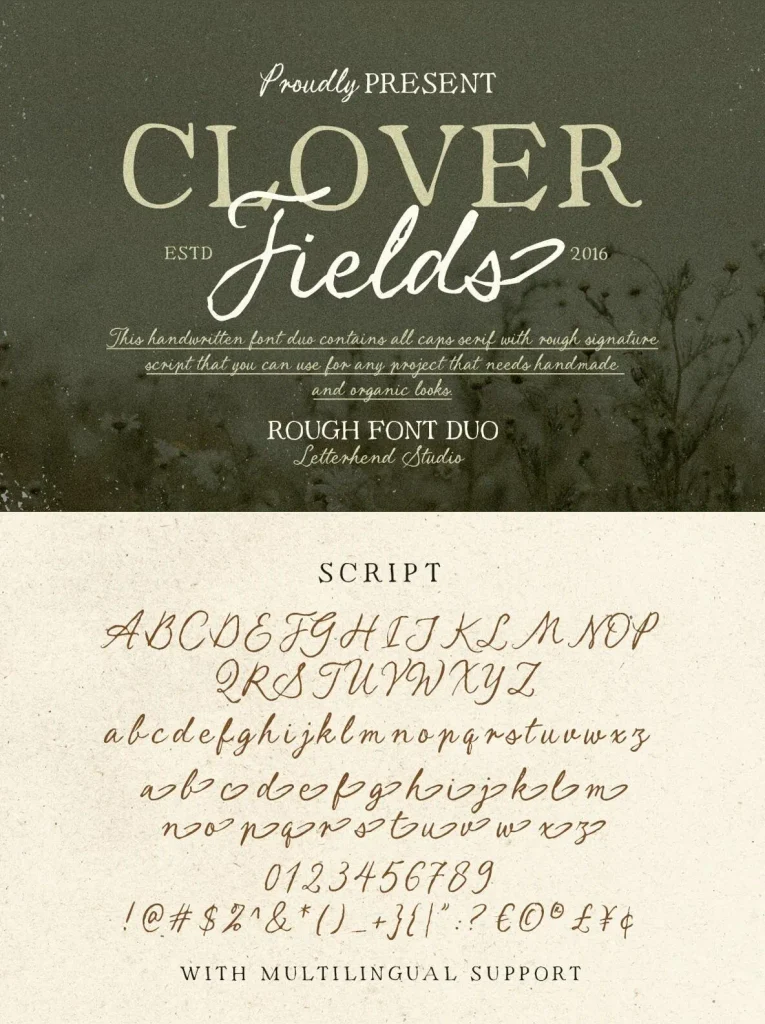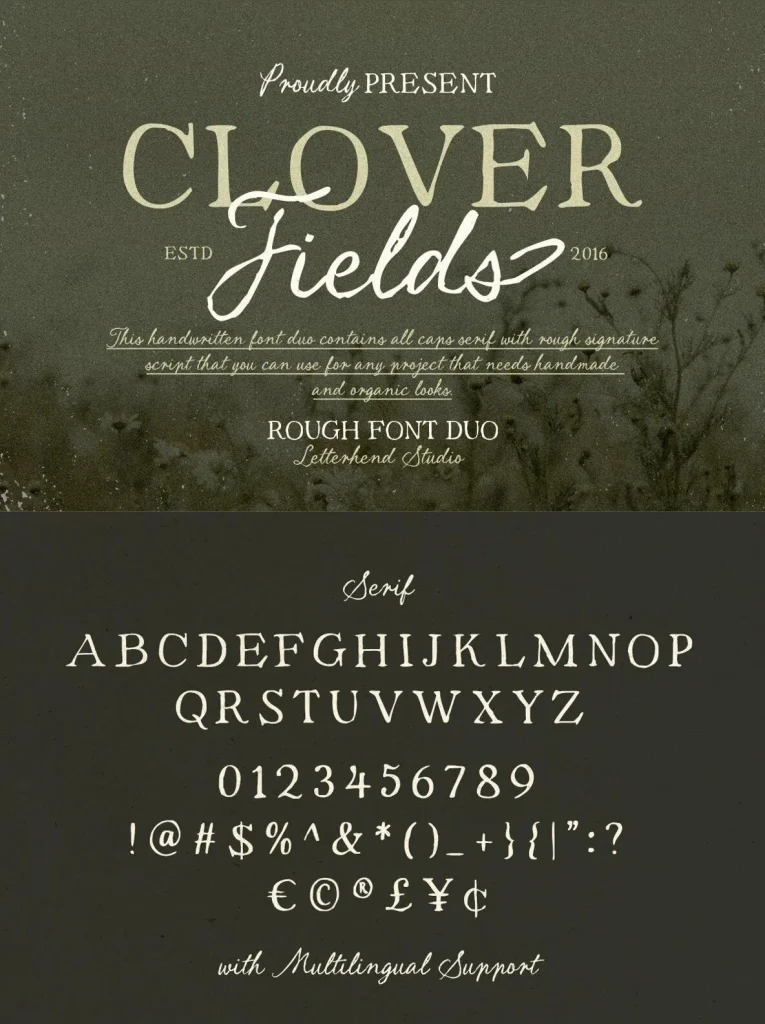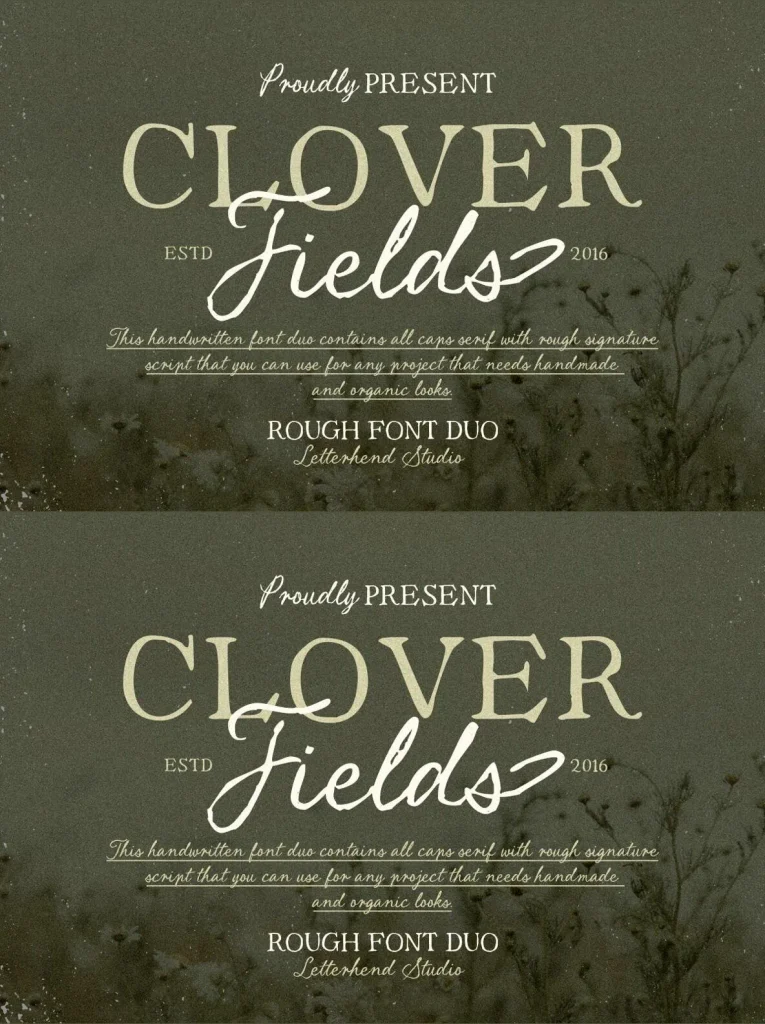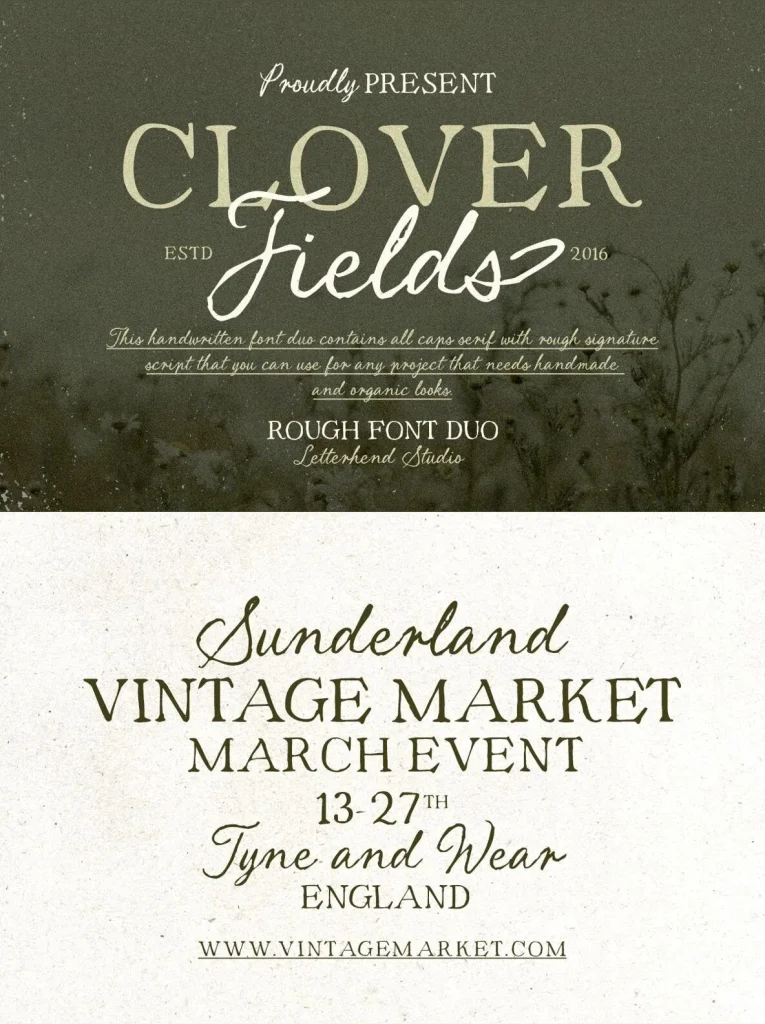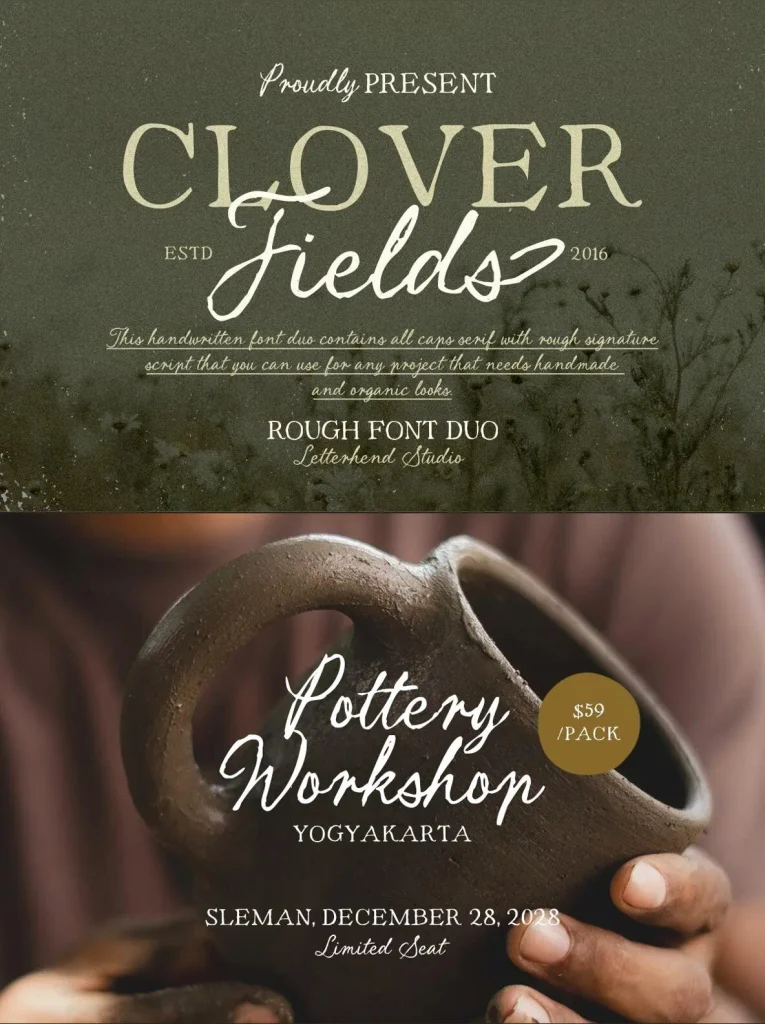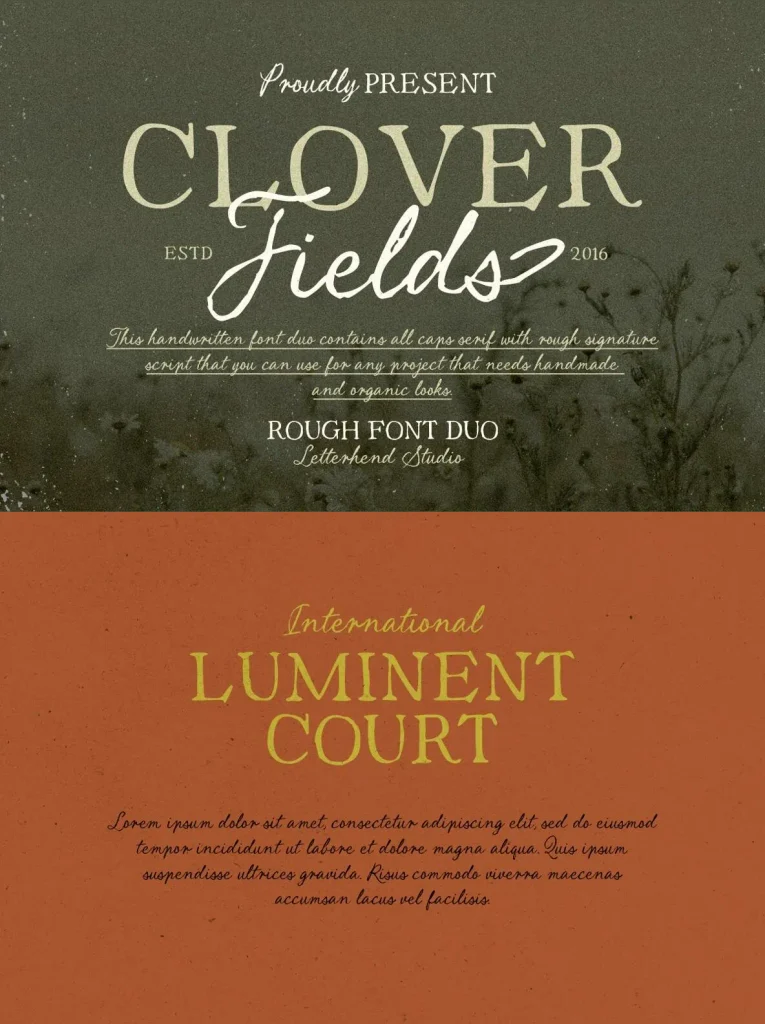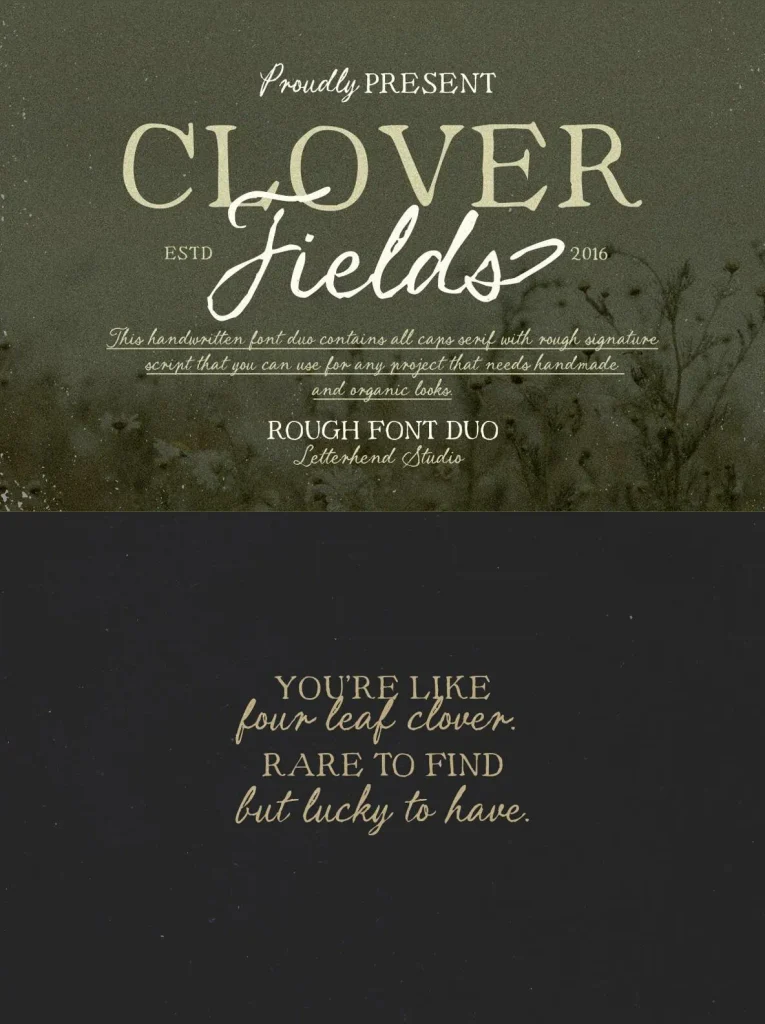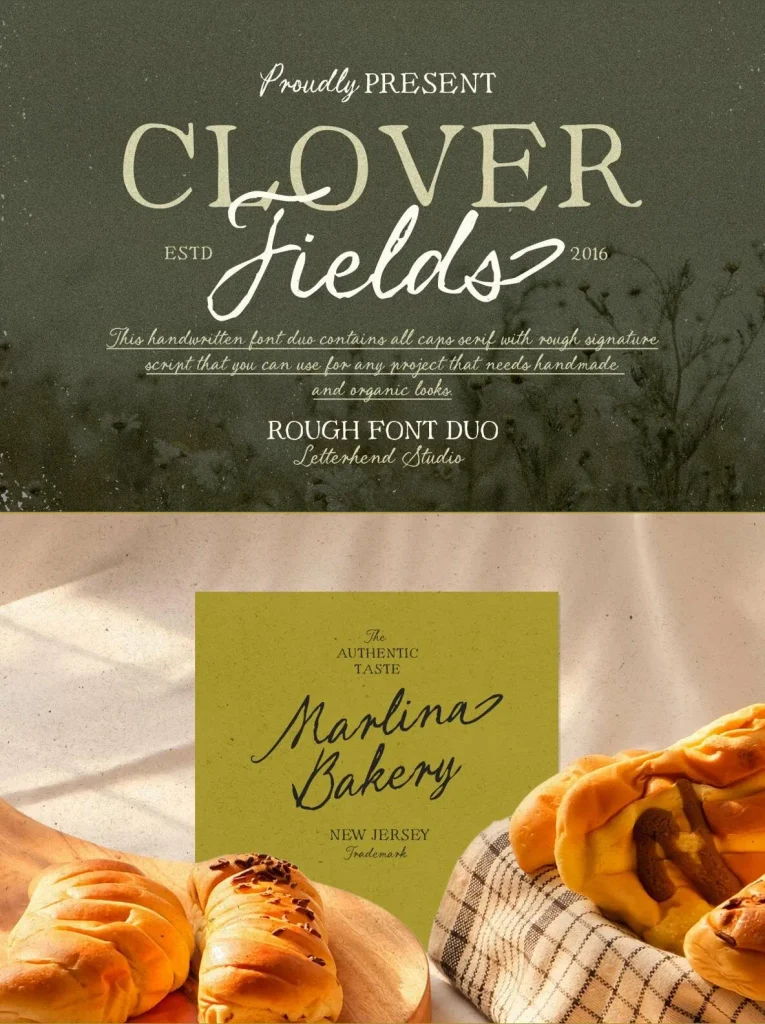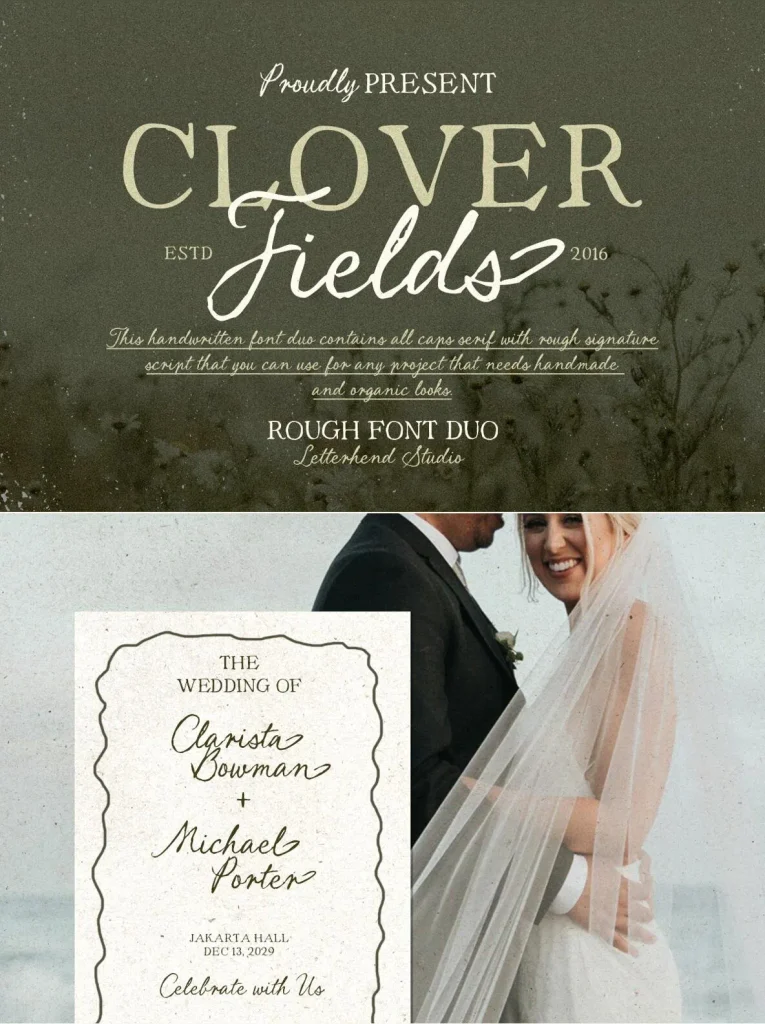
Clover Fields — Rustic Notes in Type
Clover Fields blends an organic serif with a rough handwritten script, creating a soft rustic look that feels calm, natural, and beautifully imperfect. Its textured strokes and organic details give this font duo a warm handmade charm, like notes written in an old countryside journal.
The pairing balances structure and spontaneity, making Clover Fields suitable for designs that call for a natural, personal, and gently weathered typographic voice. Use the serif and script together to create contrast while keeping the overall tone soft, rustic, and expressive.
Features
Uppercase & lowercase
Numbers and punctuation
Alternates & Ligatures
Multilingual Support